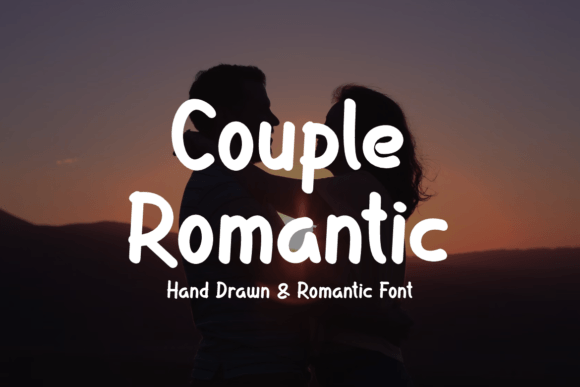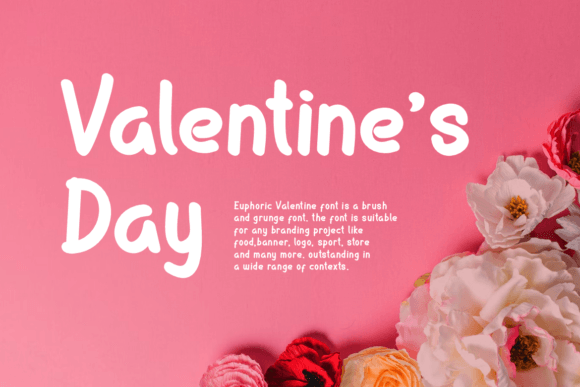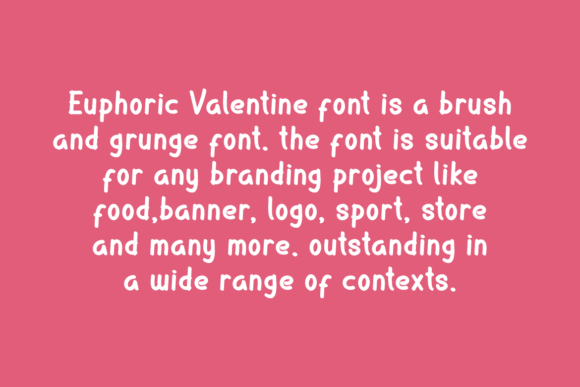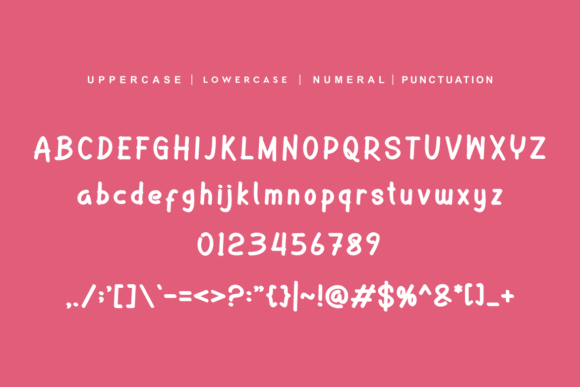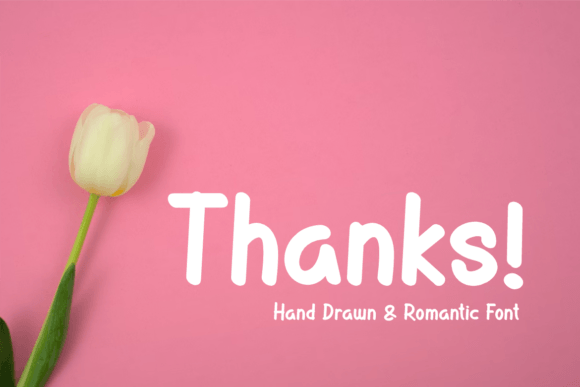
Introduction to Euphoric Valentine Font
Euphoric Valentine is a fun, friendly, and romantic handwritten font.
Add it to your lovely projects and enjoy the results .
Key Features of Euphoric Valentine Font
Why Choose Euphoric Valentine Font?
Euphoric Valentine Font offers exceptional quality and versatility, making it a valuable addition to your design toolkit. Whether you’re creating for personal projects or commercial use, Euphoric Valentine Font delivers professional results.